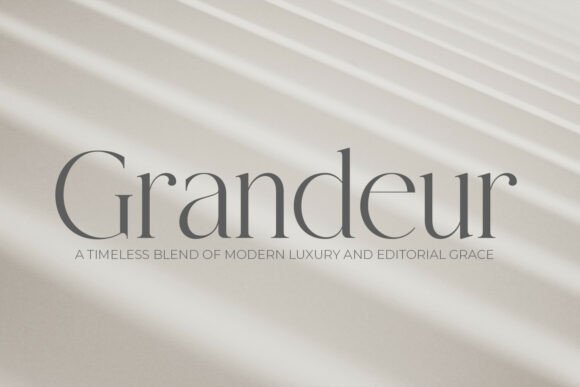
Have you ever stumbled upon a beautifully designed magazine or a luxurious brand identity that left you in awe? The subtle elegance of the typography, the precision of the layout, and the sophistication of the overall design – it all comes together to create an unforgettable experience. For designers, moments like these are a constant source of inspiration, reminding us of the power of good design to elevate and refine our message.
Enter Grandeur – Elegant Classic Serif Font, a timeless typographic solution that embodies the essence of quiet luxury. With its clean lines, high-contrast stems, and refined aesthetic, Grandeur is the perfect choice for designers who crave simplicity, prestige, and a touch of classic elegance.
Whether you’re working on a high-fashion magazine, a luxury real estate branding project, or a premium wine label, Grandeur – Elegant Classic Serif Font is sure to elevate your design to new heights. Its understated sophistication and refined beauty make it a valuable addition to any designer’s toolkit.
Grandeur – Elegant Classic Serif Font Key Features
- Unique Characteristics: Elegant and sophisticated design, ideal for formal and luxury branding
- Glyphs and Characters: Includes a wide range of glyphs and characters, including ligatures and ornaments
Grandeur – Elegant Classic Serif Font Review
Overall, I’m impressed with the Grandeur font. It’s perfect for anyone looking for a classic, elegant serif font. Here are some things that work well:
- ✨ Beautifully crafted letterforms that exude sophistication and refinement.
- ✨ Wide range of weights and styles to choose from, making it suitable for various design projects.
- ✨ High-quality vector files that ensure crisp and clear rendering at any size.
- ✨ Easy to read, even at smaller font sizes, due to its well-designed x-height and line spacing.
However, there are some limitations:
- ⚠️ Limited language support, which may be a concern for designers working on multilingual projects.
- ⚠️ Not ideal for display headings, as the font can look a bit too formal and serious.
Overall, I think Grandeur is a great choice for designers who want a classic, elegant serif font. While it may have some limitations, its strengths make it a valuable addition to any design toolbox.
Tips for Getting the Most Out of Grandeur
Use Grandeur for formal invitations, certificates, and business presentations. Pair it with elegant backgrounds, classic textures, and subtle graphics to create a sophisticated look.
Grandeur is perfect for:
- Formal invitations and event announcements
- Certificates and awards
- Business presentations and proposals
- Wedding stationery and party invitations
Alternative Font Options for Grandeur – Elegant Classic Serif Font
Playfair Display is an elegant, high-end serif font suitable for luxury brands, high-end fashion, and fine art. It is ideal for creating a sophisticated and luxurious atmosphere. Compared to Grandeur, Playfair Display has a more refined and delicate touch, making it perfect for titles and headlines.
2. Didot
Didot is a classic serif font that exudes sophistication and elegance. It is ideal for use in high-end fashion, luxury brands, and fine art. Compared to Grandeur, Didot has a more formal and traditional feel, making it perfect for use in formal invitations, luxury branding, and fine art prints.
3. Bodoni
Bodoni is a classic serif font that is known for its elegant and refined lines. It is ideal for use in high-end fashion, luxury brands, and fine art. Compared to Grandeur, Bodoni has a more geometric and structured feel, making it perfect for use in formal invitations, luxury branding, and fine art prints.